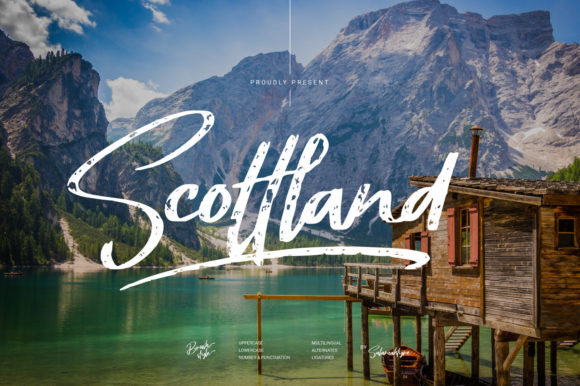
Introducing the Scottland Font: A Stroke of Brush, A Burst of Personality
In a world saturated with digital texts, where words dance across screens in an endless stream, it's the rare font that truly captivates, that possesses the power to transform words into art, and messages into masterpieces. The Scottland Font is one such rarity, a brushed script font that defies convention and ignites creativity.
Scottland is not just a font; it's an experience—a journey into the realm of the extraordinary. Its thin style, reminiscent of a delicate brushstroke, breathes life into your designs, adding a layer of texture and depth that commands attention. Whether you're crafting logos, branding projects, posters, flyers, or social media posts, Scottland's unique charm will elevate your work to new heights.
With Scottland, you'll discover a font that's as versatile as it is beautiful. Its elegant curves and graceful lines lend themselves effortlessly to a wide range of design projects. From product packaging and product designs to labels, photography, and beyond, Scottland's adaptability knows no bounds.
Scottland is more than just a collection of letters; it's a gateway to a world of creative possibilities. Its PUA encoding grants you effortless access to a treasure trove of glyphs and swashes, empowering you to unleash your imagination and craft designs that speak to the soul.
In a world clamoring for attention, make your designs stand out with the Scottland Font. Its alluring beauty and captivating charm will transform your words into visual symphonies, leaving an unforgettable impression on your audience. Embrace the power of Scottland and watch your designs flourish into works of art.